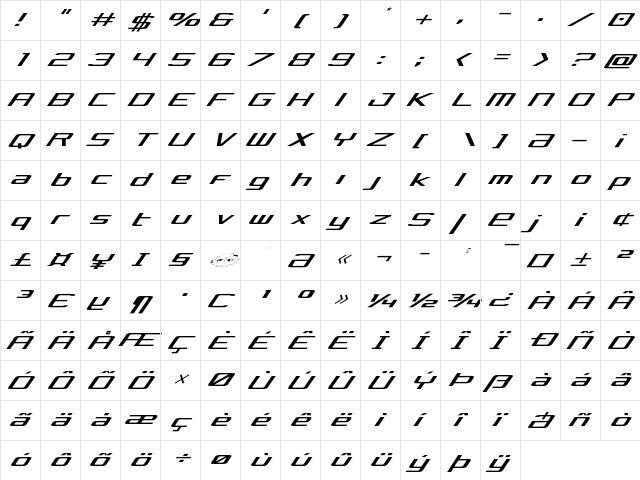
Concielian Light Italic Font Preview
Design Context for Concielian Light Italic Typeface
Concielian Light Italic offers clean, dependable letterforms without strong stylistic allegiance, making it a practical choice for designers who need flexibility. The slanted form adds forward momentum and visual energy. Its slender proportions lend an understated elegance to any composition.
Pro Tip: Try Concielian Light Italic for annotation and caption copy alongside an upright companion — the contrast in angle creates a dynamic but ordered typographic system.